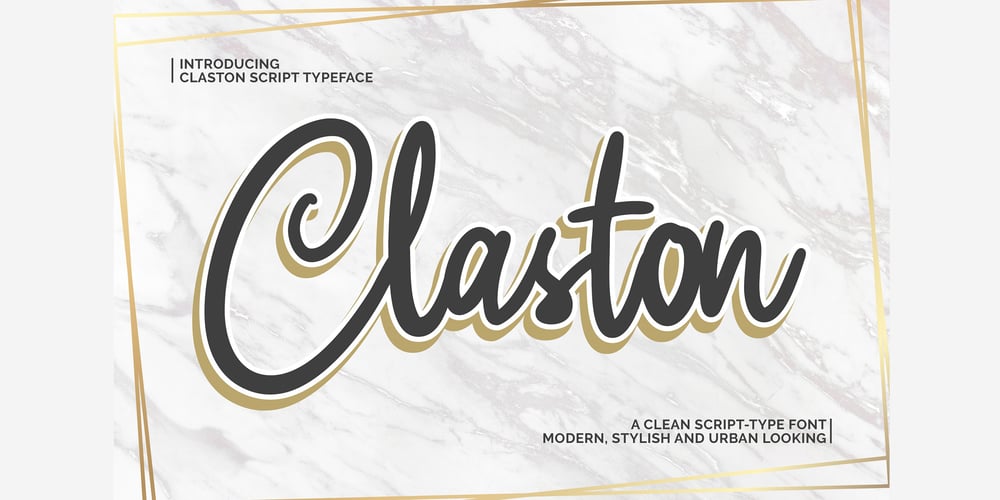
Claston Script
Claston Script font
Claston Script Font Family was designed by Heri Imanudin and published by Krafted. Claston Script contains 1 styles and family package options. Turn the page to the future and leave all the past behind. It’s a new age and you will move the cogs of the world forward! There is no need to worry or fear, the Claston Script will pave the way for you.With its clean script-type design and curved indentations, this font will take your projects to the next level! Move forward with elegance and bring your audiences to where your vision is: the future. It might take some time to get them there, but that’s okay! You have the perspective, the frame of mind, and most importantly the attitude to wrap it all together into a neat project!The Claston Script aims to bring out a modern and stylish view to what you make. It fits right in with your designs, whatever it is! It’s beautiful without trying too hard, it’s gorgeous without being apologetic, it’s brave in the face of uncertainty, these all represent you.Easily connect with your urban and forward thinking audience with this script and blow their minds!